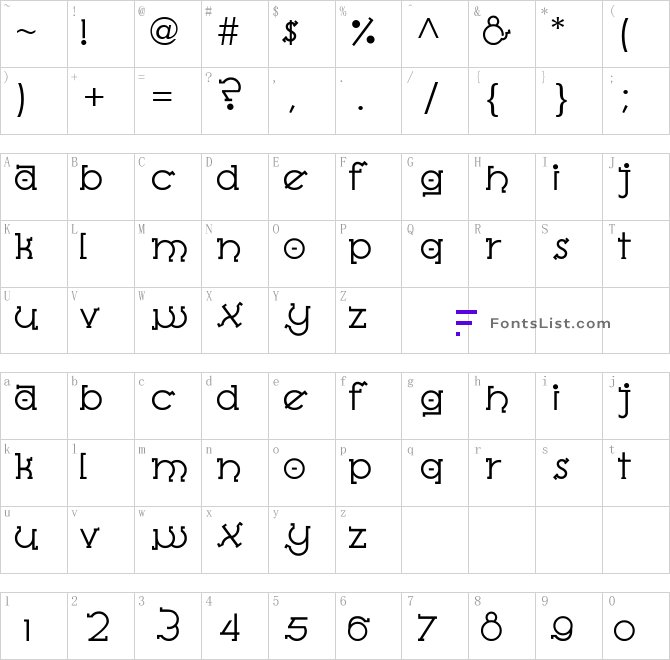
- Font Name:Almost Sanskrit Taj Light
Almost-Sanskrit-Taj-Light.ttf is a very beautiful artistic font, Almost-Sanskrit-Taj-Light.ttf is widely used in the design and printing of various books and pictures,Almost-Sanskrit-Taj-Light.ttf has a strong visual impact,Almost-Sanskrit-Taj-Light.ttf is a commonly used font in newspapers, magazines and books, and is used in posters, e-commerce Poster design, store design, logo design, font design and other fields.Almost-Sanskrit-Taj-Light.